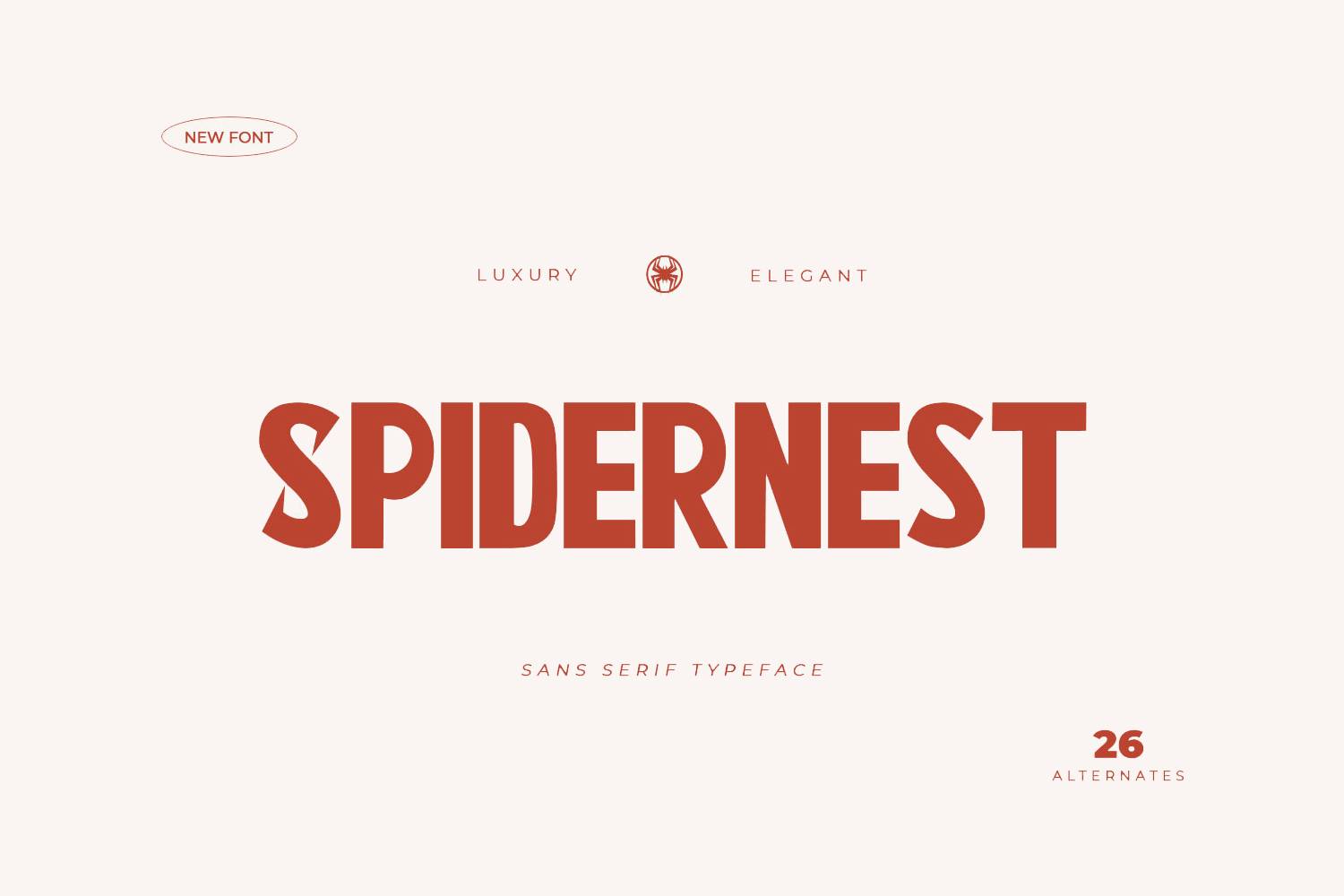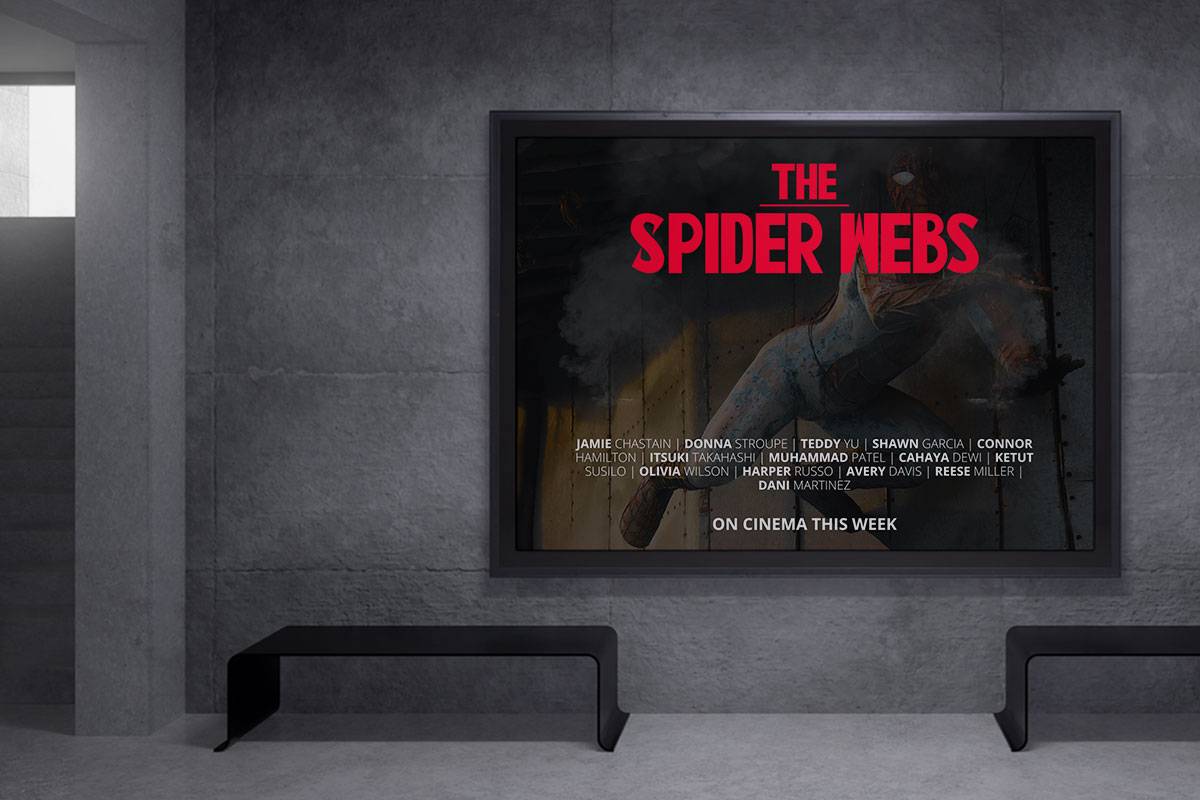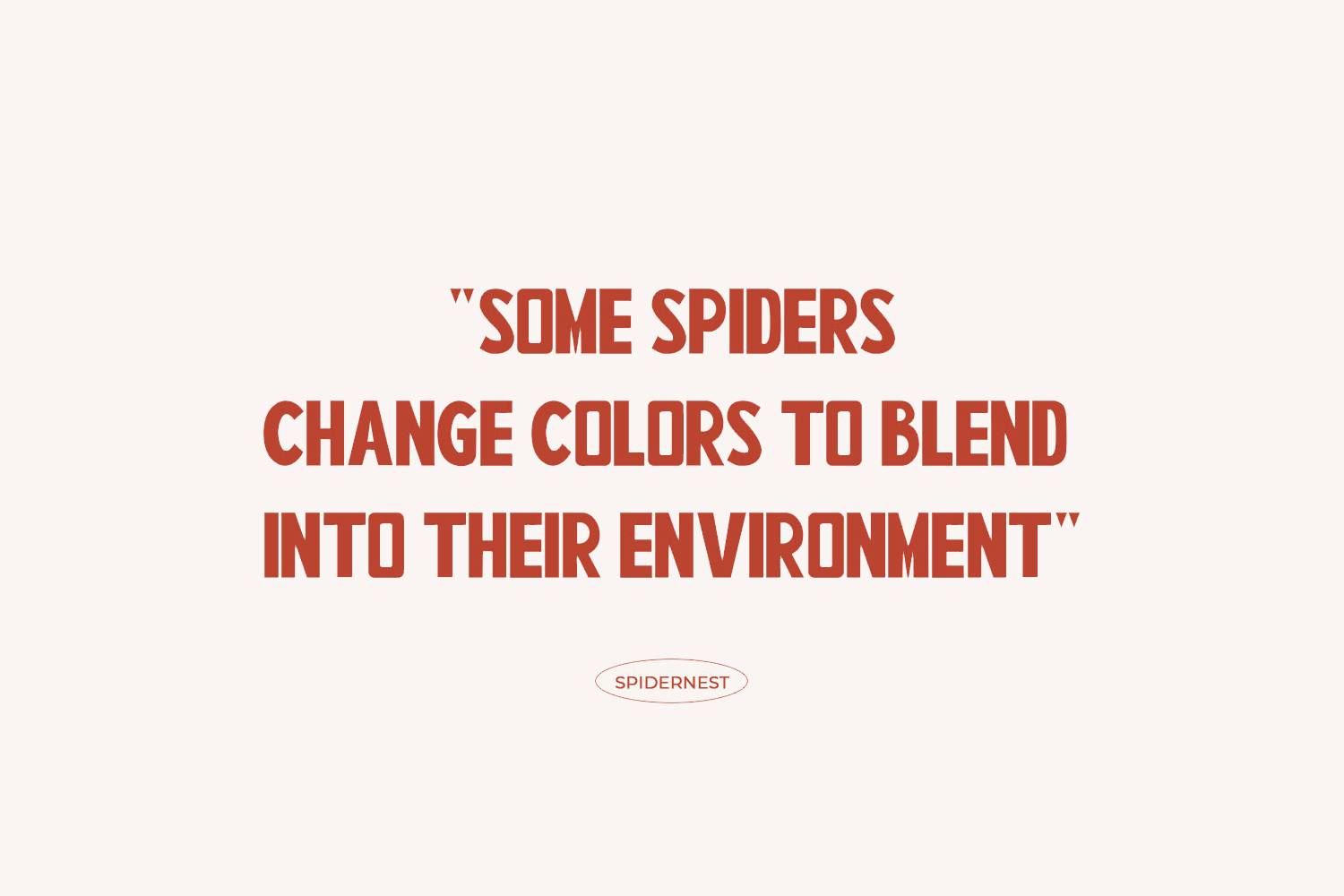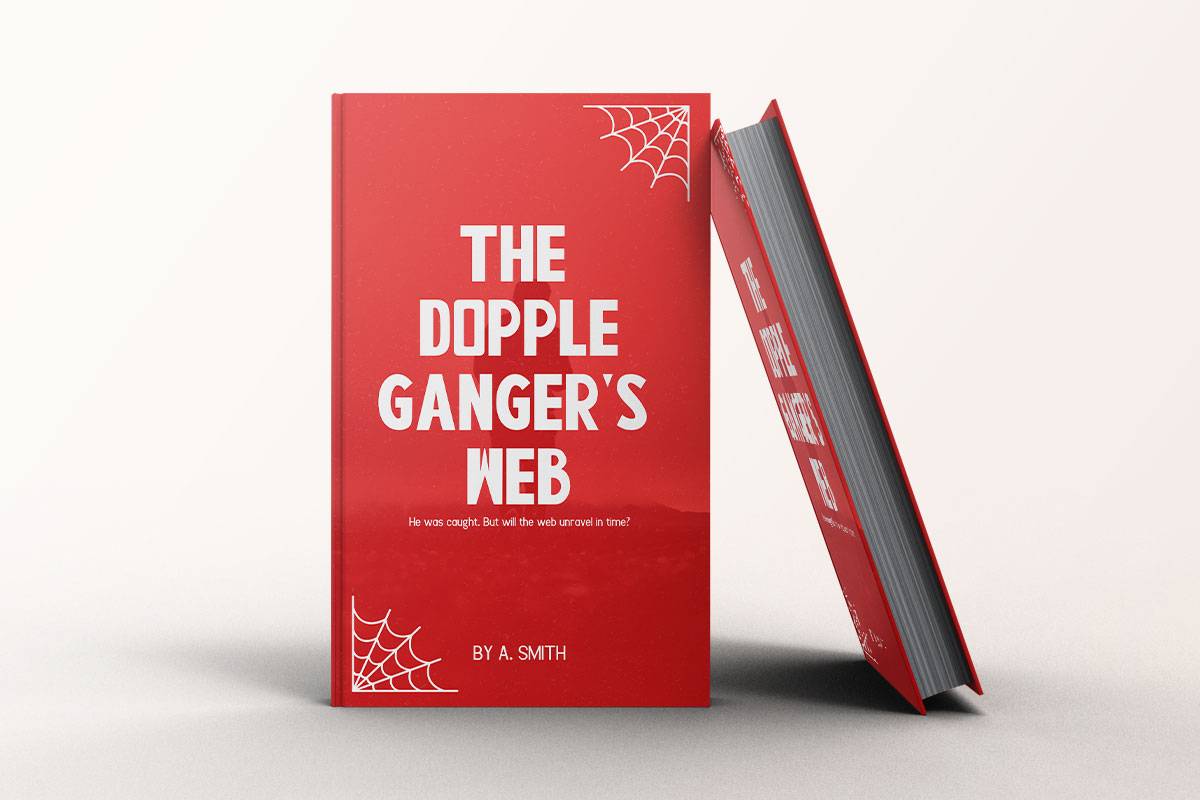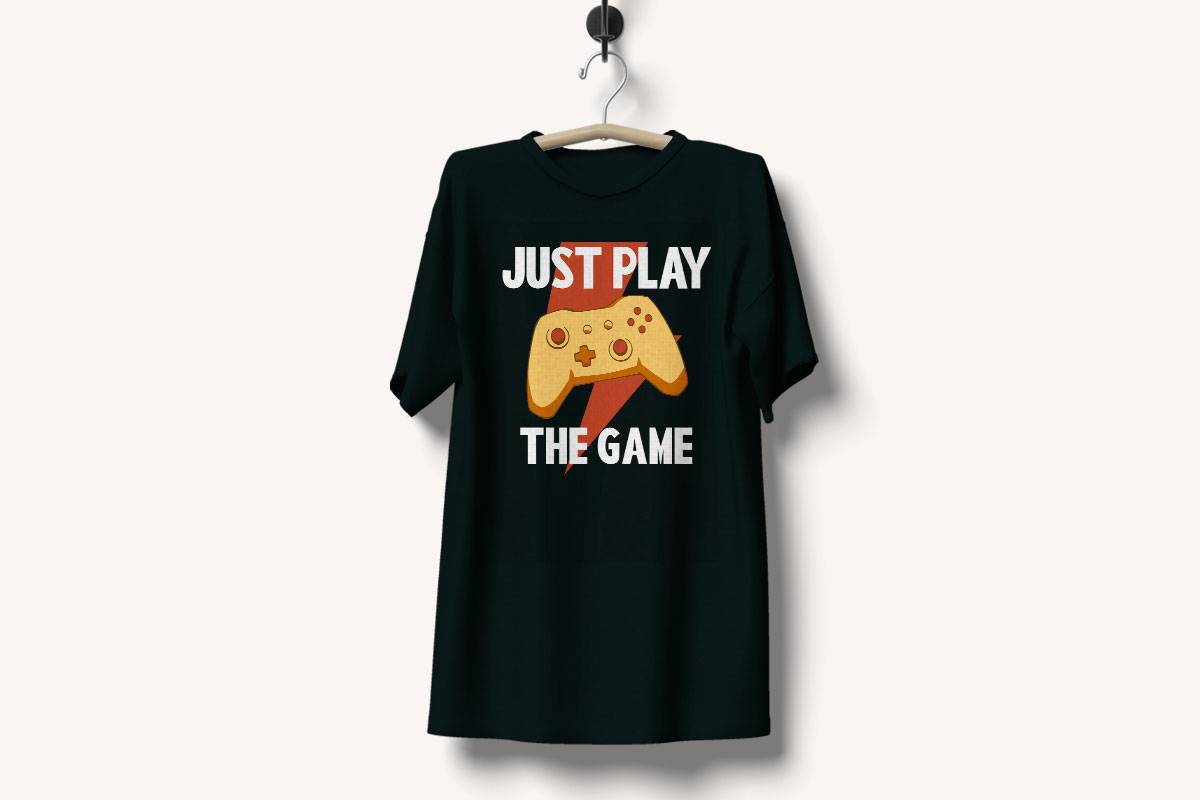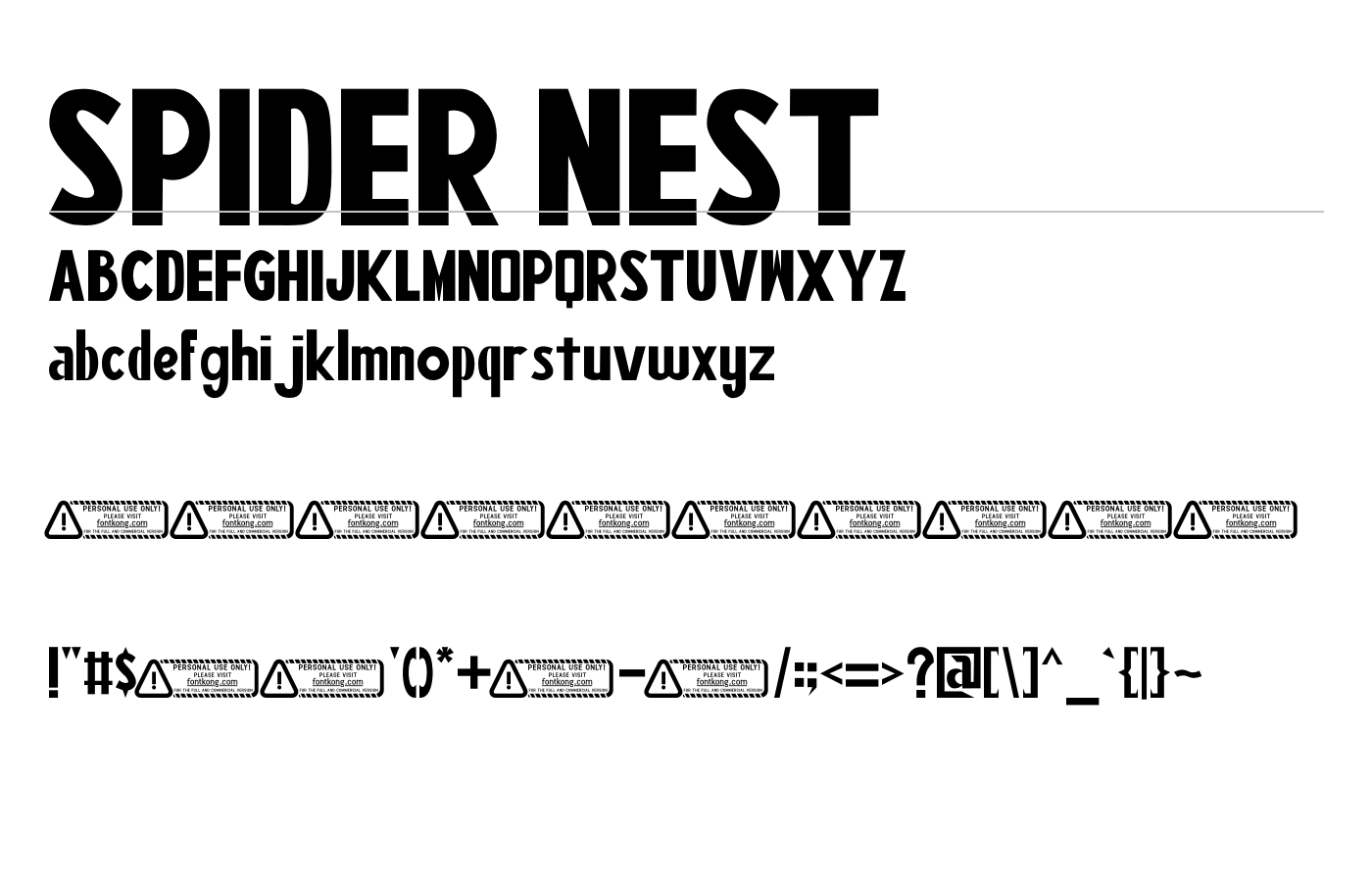
Spidernes is a bold, condensed sans serif font with a tall x-height and uniform stroke weight, giving it a strong, modern, and slightly quirky personality. Its sharp edges and compact letterforms make it ideal for attention-grabbing headlines, posters, and branding that needs a distinctive, edgy look. This font works well for creative projects seeking a bold statement with a playful yet serious tone.
Spidernes Font
About Spidernes Font